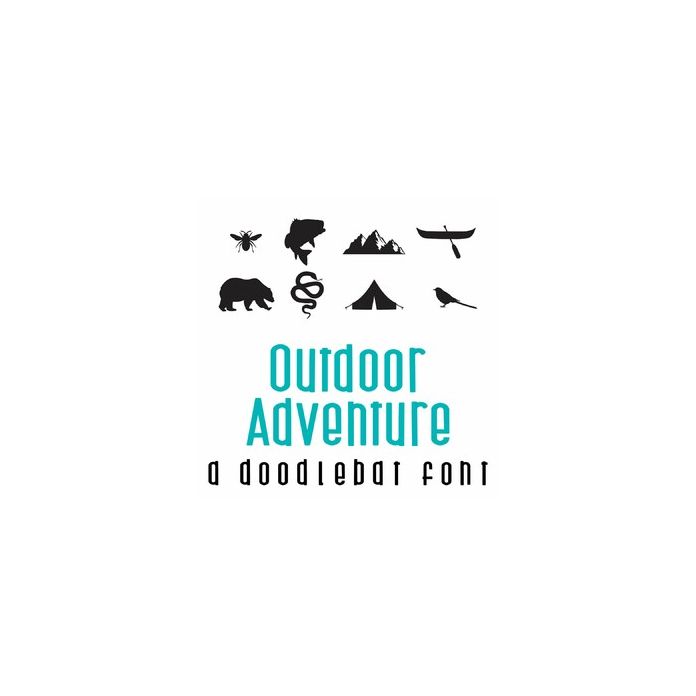
Outdoor Adventure Doodlebat Font
This fun doodlebat font features 26 outdoor adventure images. Perfect for cards, gifts, decor, crafts, scrap book pages, planner stickers and more!